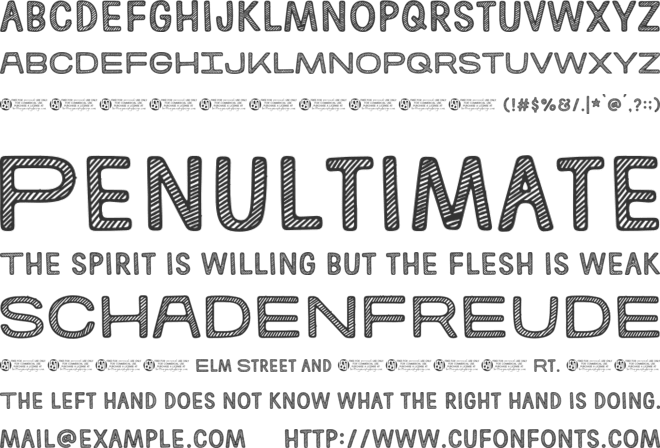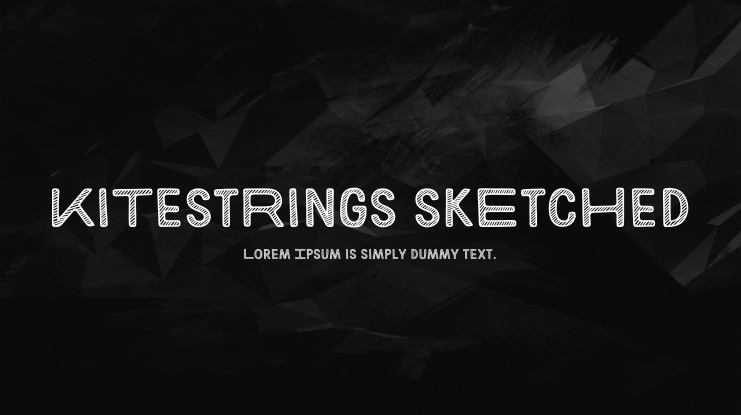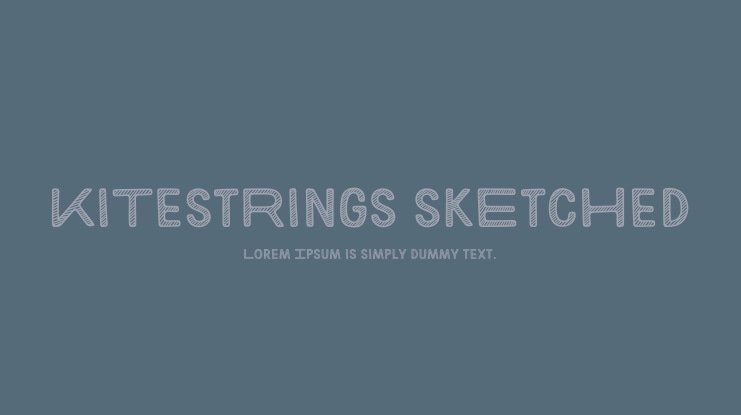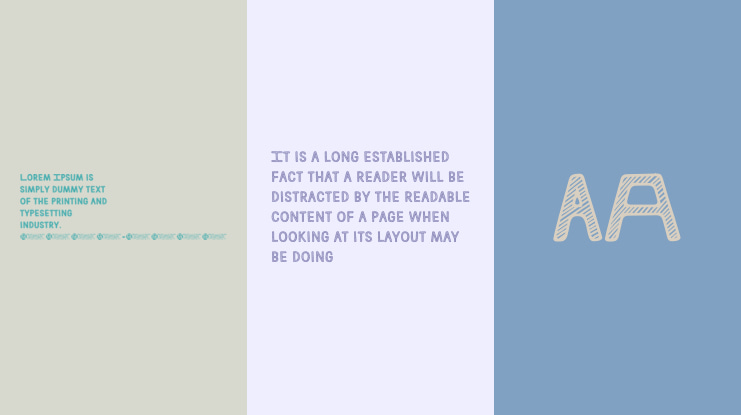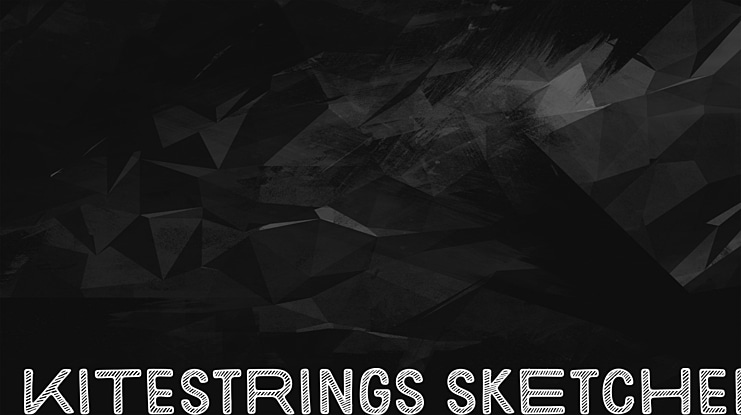
KiTestRings skEtcHed Font
Kitestrings Sketched is a sketched all-caps font with elongated uppercase letters so you can mix and match as you please to create text with that custom, variable width style.